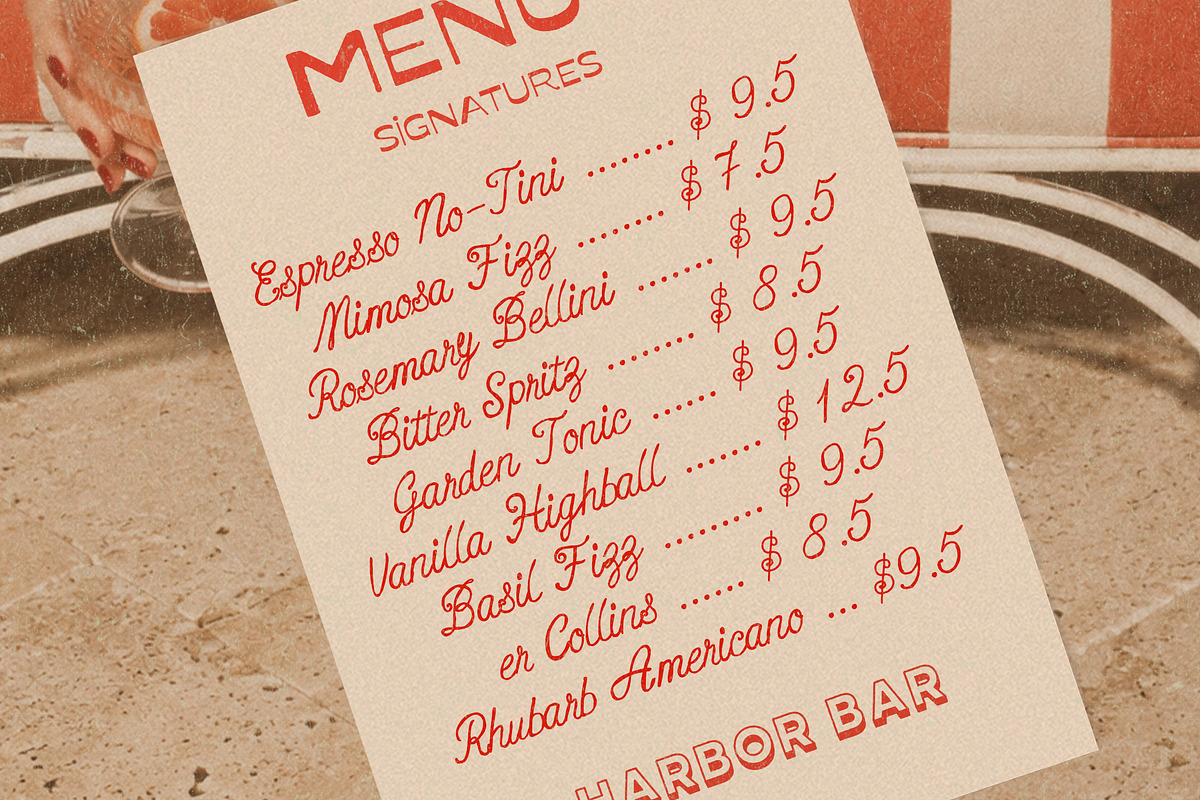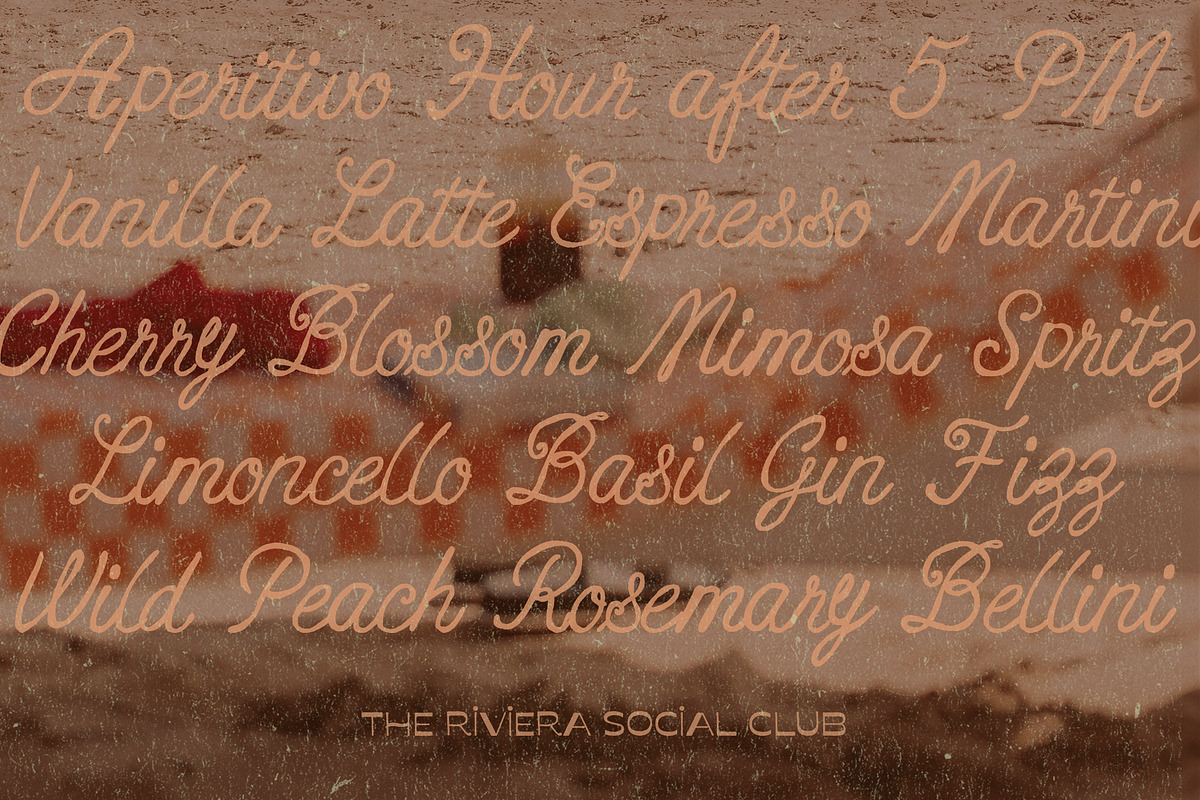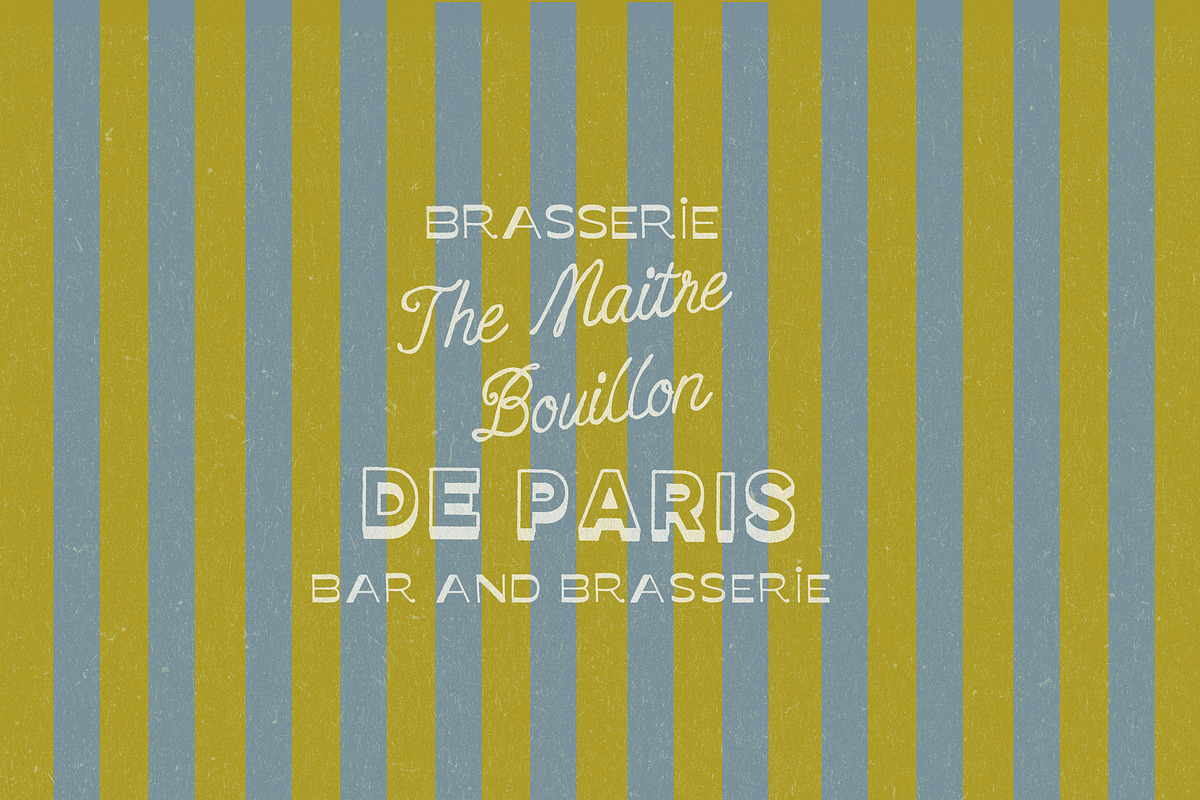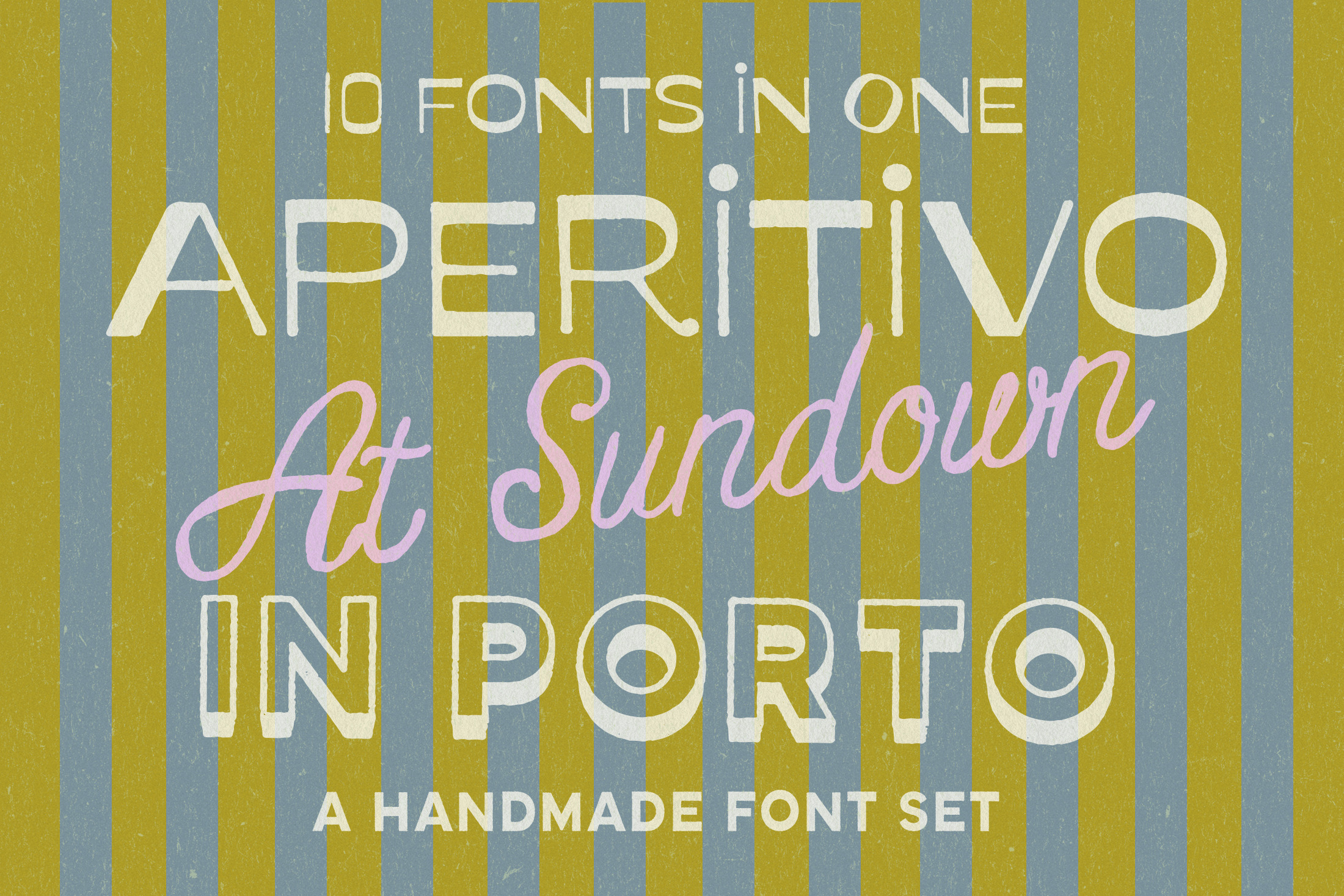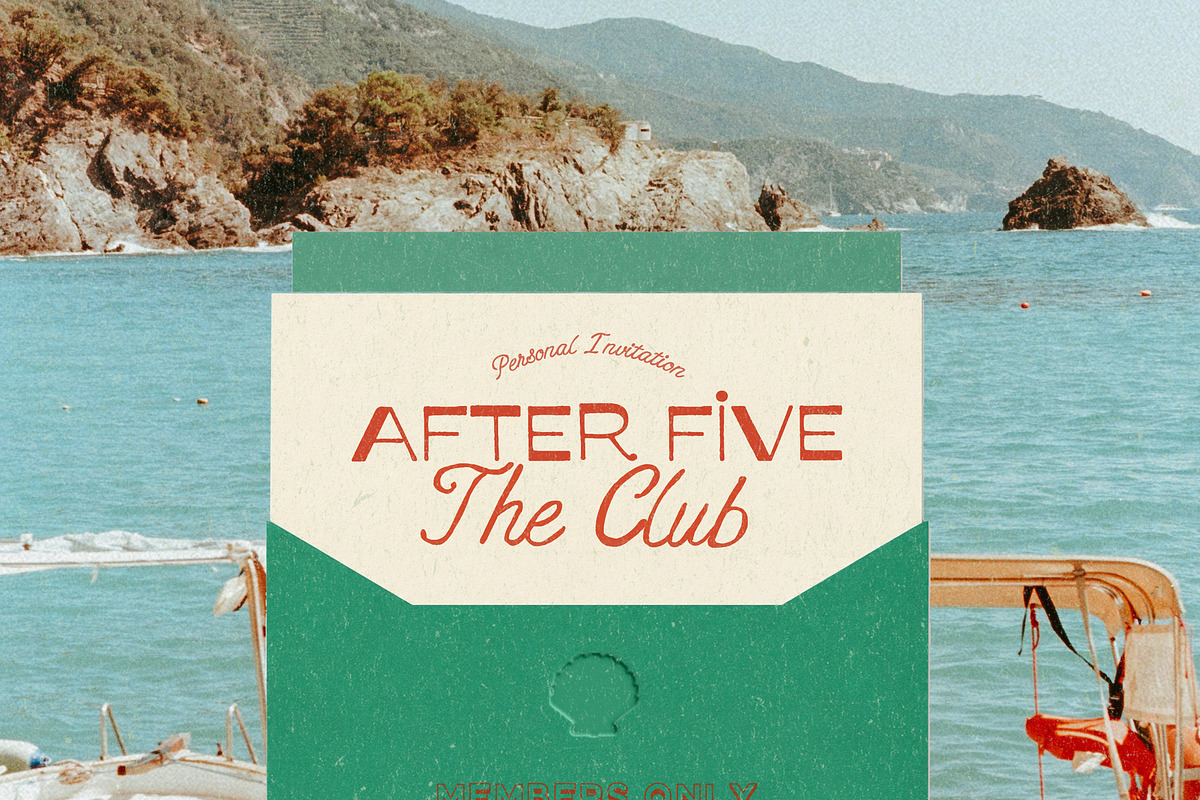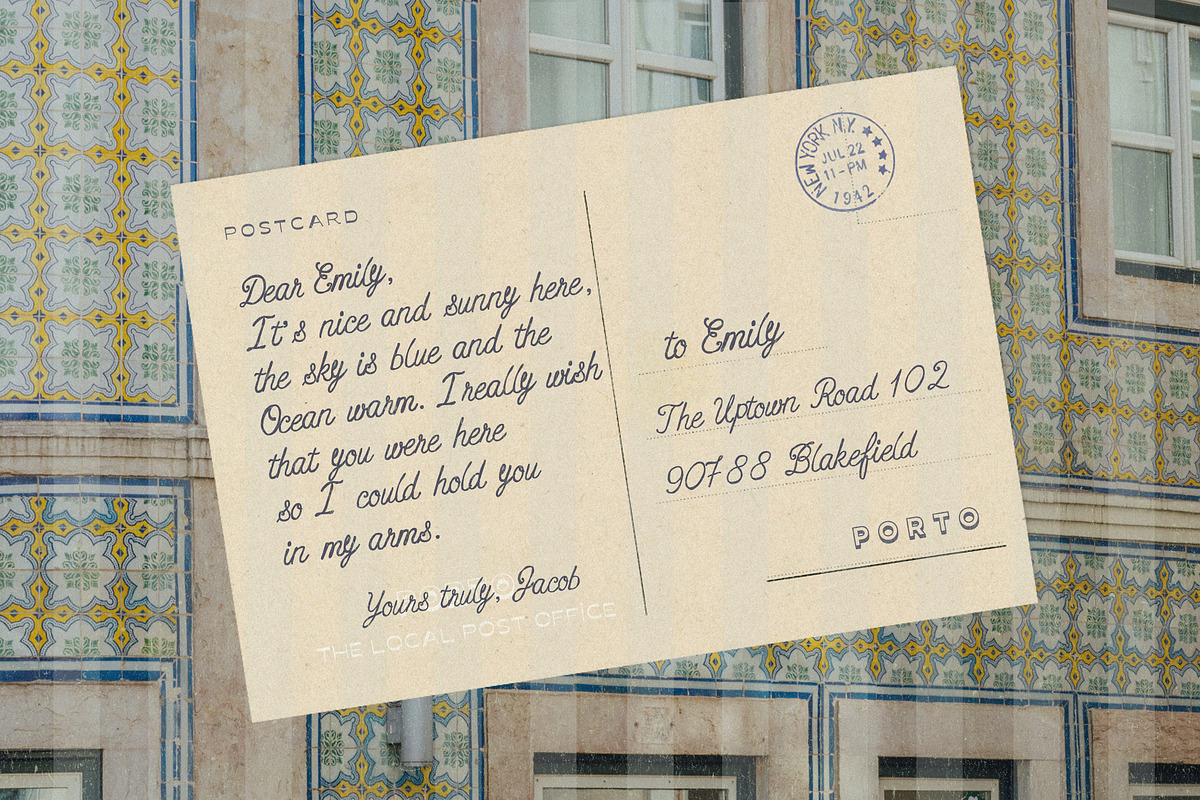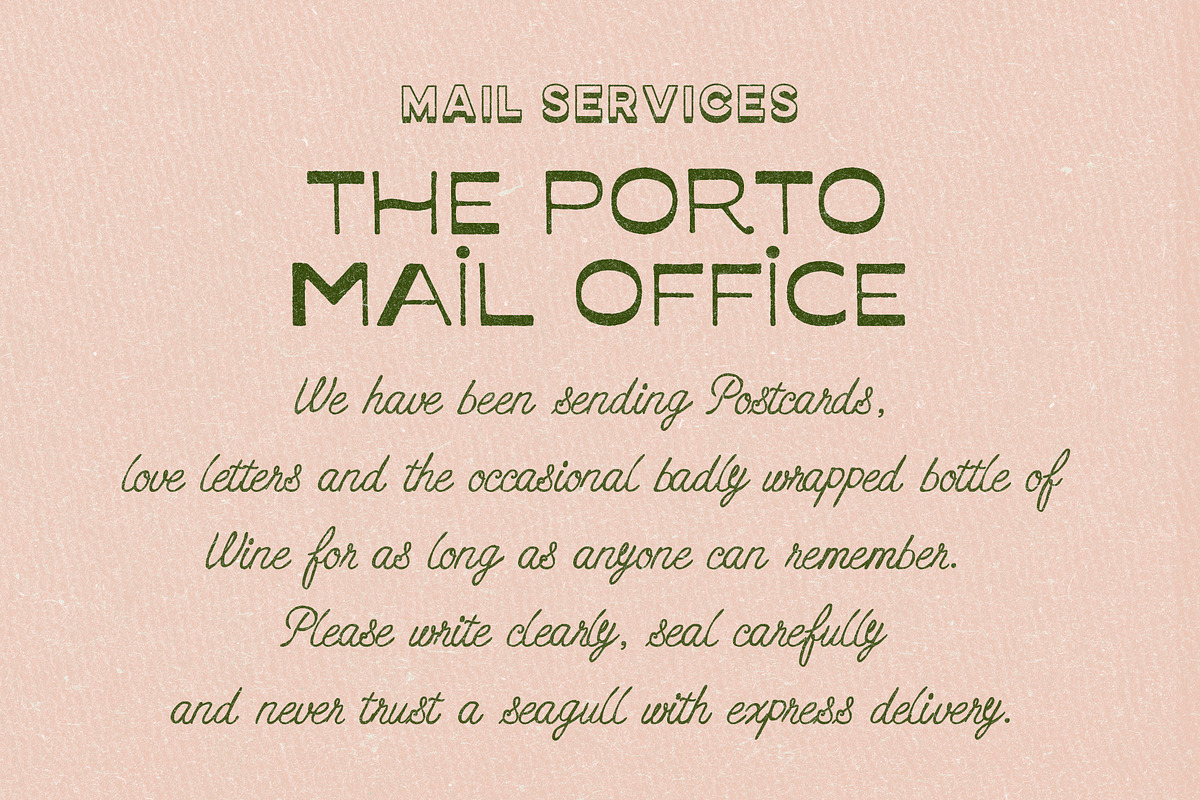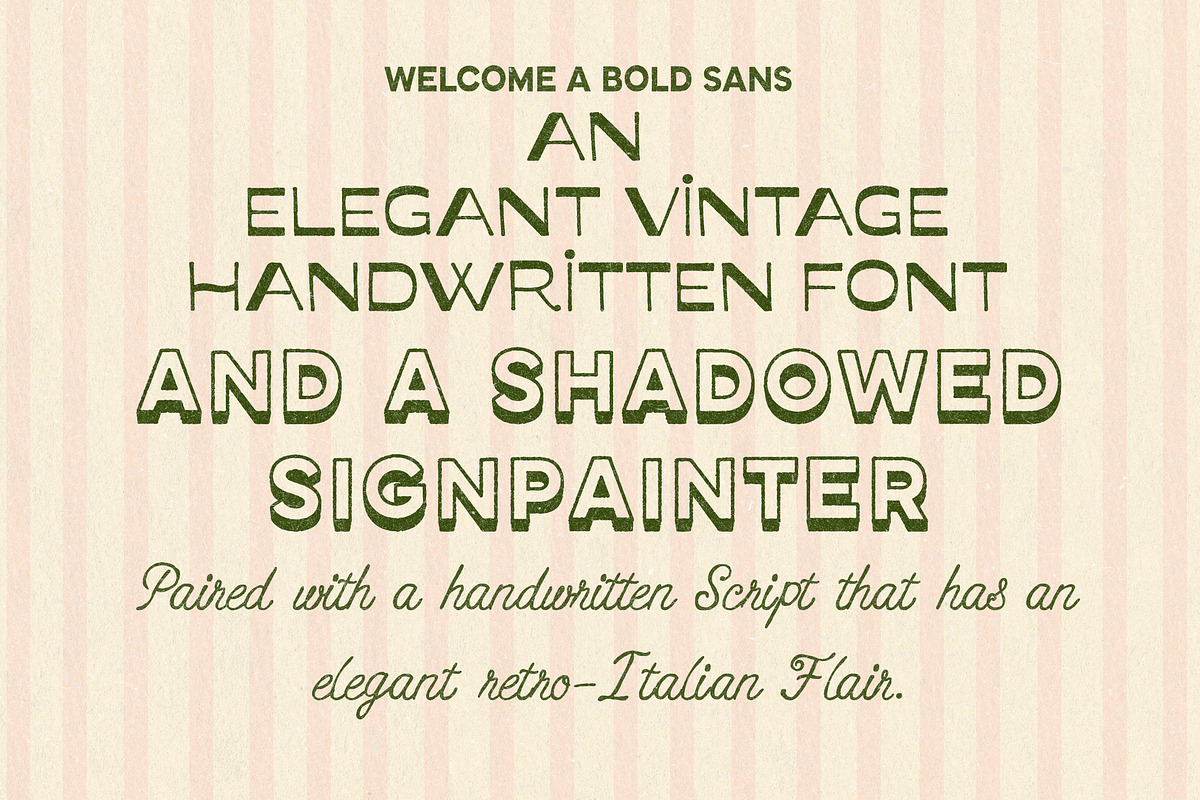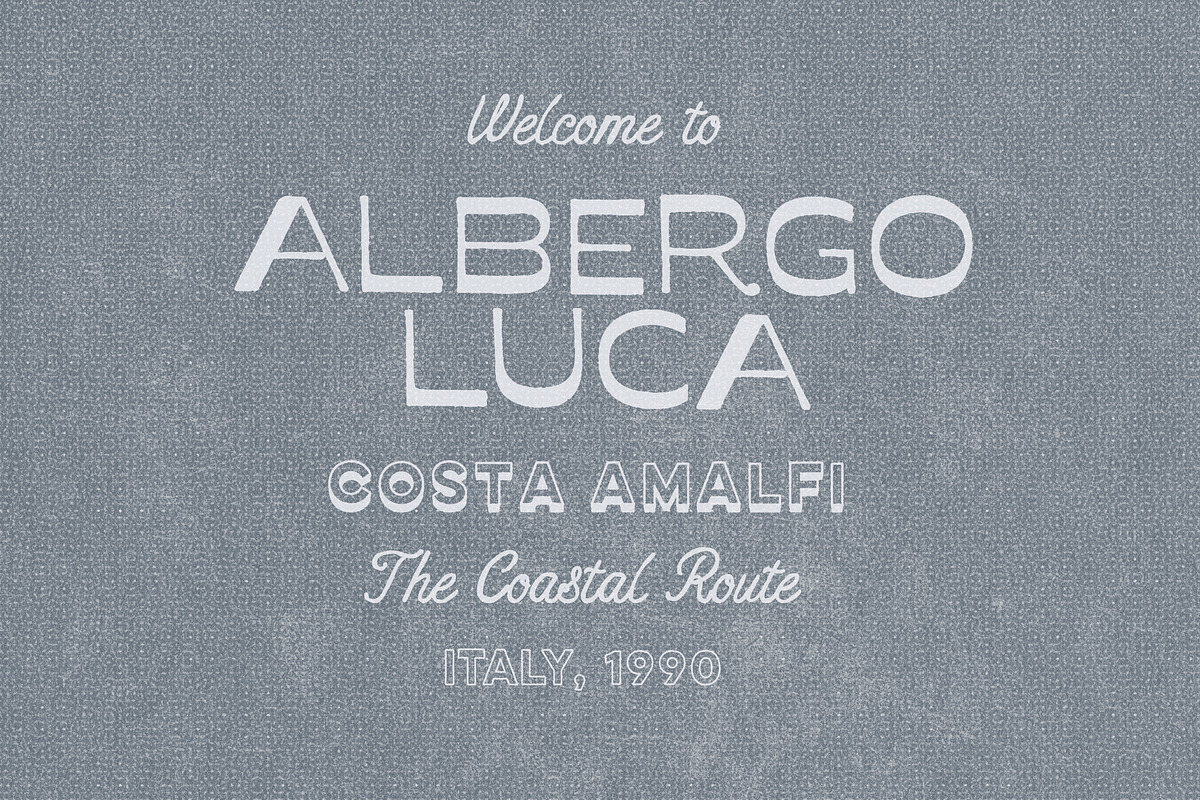
Handwritten Retro Sign Painter Font
Meet Aperitivo in Porto - a playful collection of 10 handmade fonts made for menus, pizza boxes, wedding stationery and everything that could use a little more charm.
The set includes sleek sans serifs, bold retro styles, a dimensional sign painter font and a signature script in regular, bold and outlined versions. Every font was designed to work beautifully with the others, so you can mix, match and build complete brand worlds without spending hours looking for the right pairing.
Think Italian food packaging, handwritten menus, café branding, wine labels, wedding invitations, posters, social media graphics, logos and packaging that feels fun, personal and a little bit nostalgic. Aperitivo in Porto brings together sweet vintage character, bold sign-painter energy and an easy handmade feel - all in one very versatile font collection.